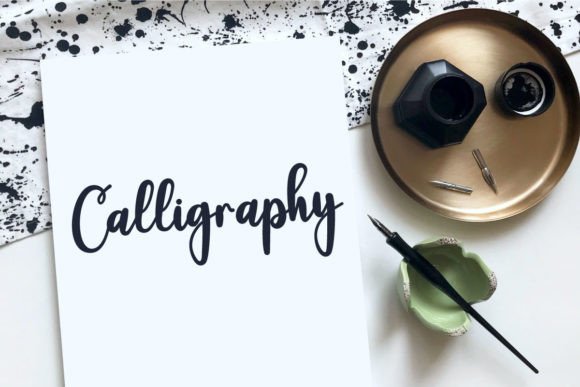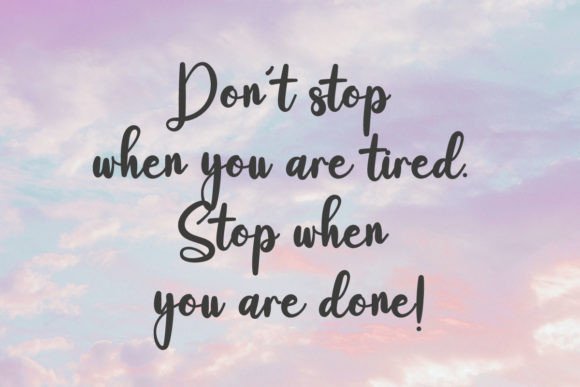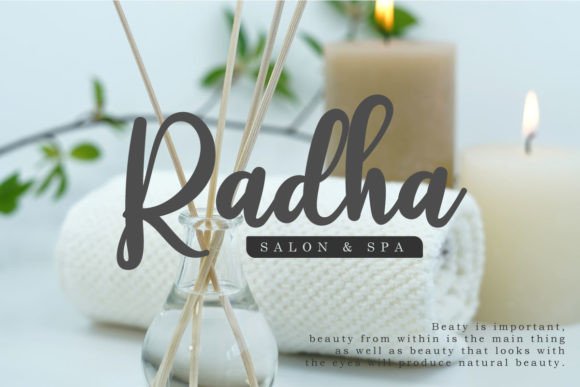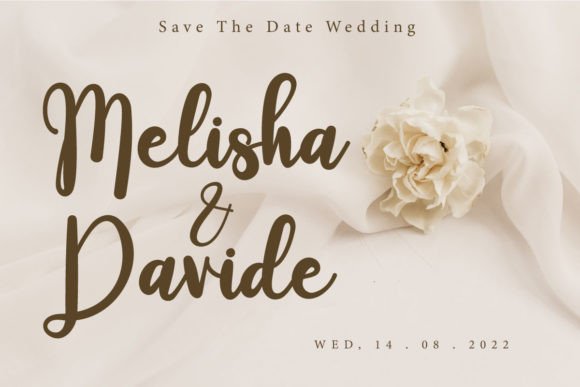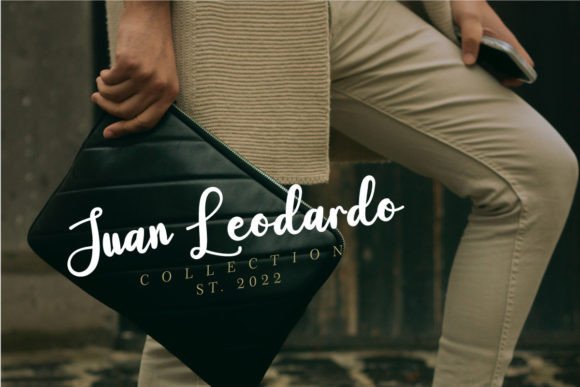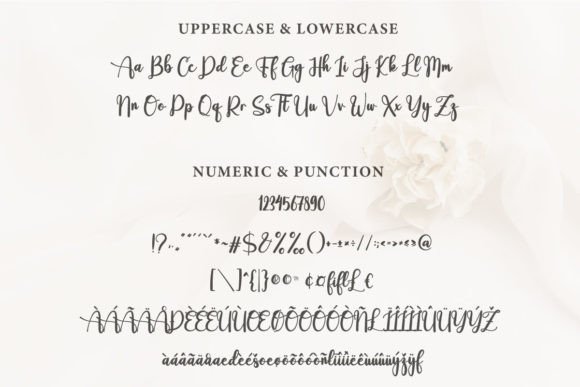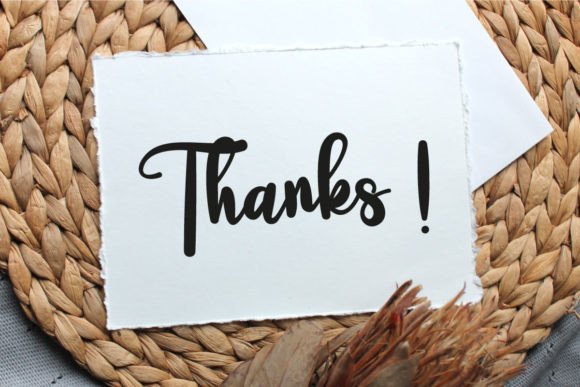
Hopefully Font
About Hopefully Font
“Hopefully” is a beautiful handwritten font that adds a touch of elegance and charm to your creative projects. Its versatility makes it suitable for a wide range of applications, making it a valuable asset for designers and creators. Whether you’re working on wall displays, wedding invitations, social media posts, logos, advertisements, product packaging, product designs, labels, photography watermarks, invitations, stationery, or any project that demands impressive typography, “Hopefully” is a font that can enhance your designs.
This font’s beauty lies in its ability to convey a sense of sophistication and authenticity to your work. Its elegant and handwritten style adds a personal and artistic flair, making it ideal for projects where you want to create a lasting impression.
“Hopefully” is adaptable and versatile, allowing it to blend seamlessly with various design themes and concepts. It is a font that can elevate your creative work, helping you achieve the desired aesthetic and impact.
In summary, “Hopefully” is more than just a font; it’s a creative asset that brings a touch of elegance and charm to your design endeavors. Its beautiful handwritten style, combined with its adaptability, makes it a valuable addition to your font collection. Embrace “Hopefully” and experience how it enhances your creative projects with its timeless and captivating typography.